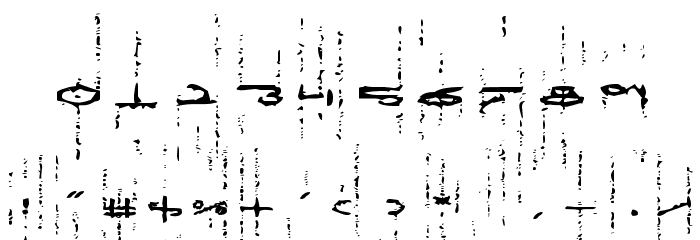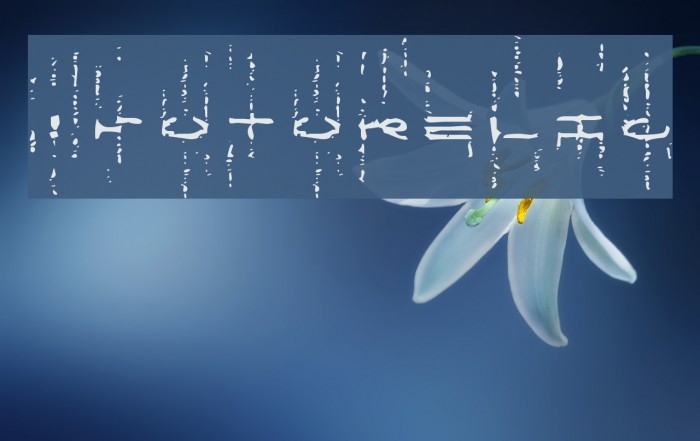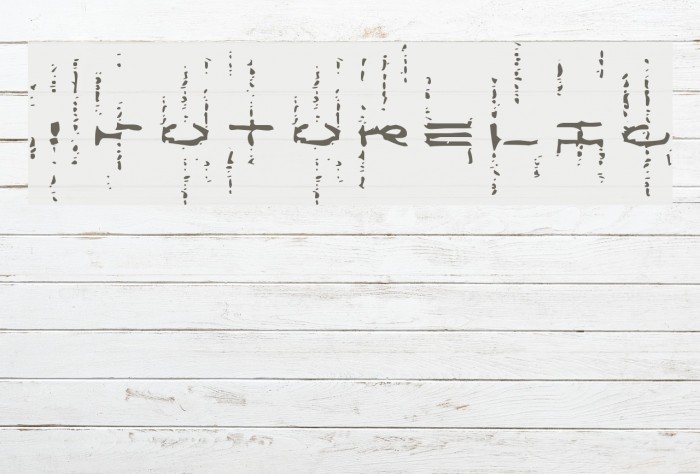
!Futurelic Font
This font exhibits a futuristic and distressed style, characterized by its unique, fragmented appearance. The letters are designed with irregular, jagged edges and a textured look that suggests wear and erosion. This gives the font a dynamic and edgy feel, making it stand out with its bold and unconventional design. The uppercase and lowercase letters maintain a consistent aesthetic, with each character displaying a distinct, angular form. The numbers and special characters follow the same design principles, ensuring uniformity across the font. Its overall appearance is both modern and artistic, suitable for projects that require a strong visual impact.
A futuristic, distressed font with a unique, fragmented style.
- Proposed Projects: Ideal for sci-fi themed designs, edgy posters, album covers, and video game graphics.
- Overall Style: Modern, Edgy